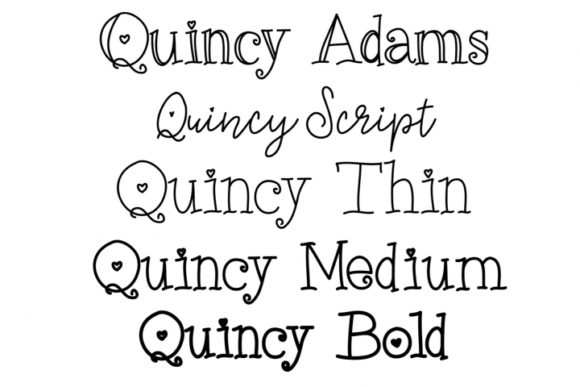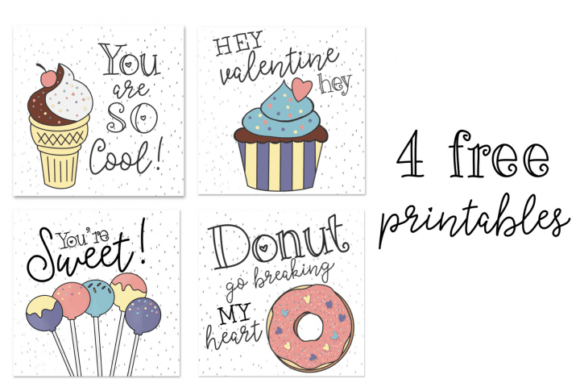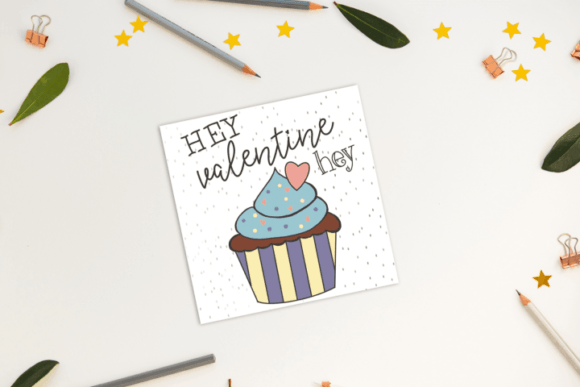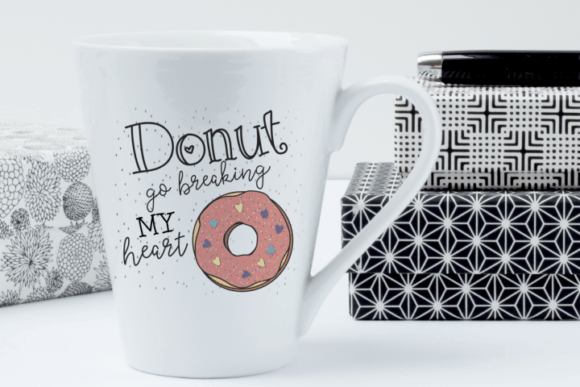
Introduction to Quincy Adams Font
Quincy Adams is a fun and playful hand-lettered font family with four font weights and a bonus script font.
Use it to add a playful and youthful feel to any item .
Key Features of Quincy Adams Font